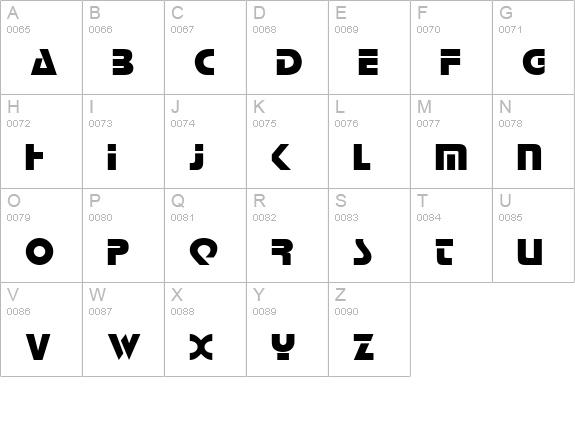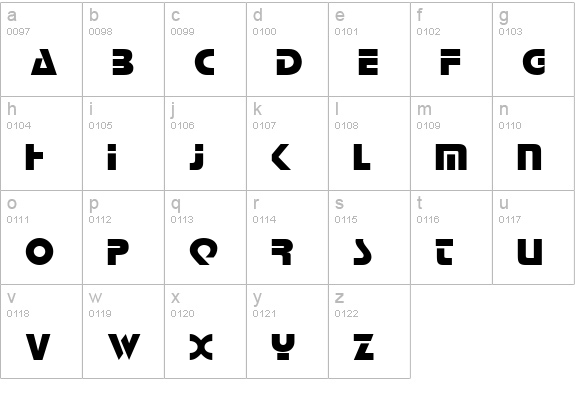
Scott font is a modern and stylish typeface that exudes elegance and sophistication. With its clean lines and graceful curves, this font is perfect for adding a touch of class to any design project. Whether you're creating a logo, designing a website, or crafting a wedding invitation, Scott font is sure to impress. But what makes Scott font even more appealing is that it is completely free! That's right, you can download this amazing font at absolutely no cost. Thanks to FontsMarket.com, you can easily access and enjoy the beauty of Scott font without breaking the bank. Not only is Scott font visually stunning, but it also offers a wide range of versatility. With multiple weights and styles available, you can find the perfect variation to suit your needs. From bold and impactful headlines to delicate and refined body text, Scott font has got you covered. Designed with attention to detail, Scott font is highly legible and easy to read, ensuring that your message is delivered clearly and effectively. Its timeless design makes it suitable for a variety of projects, from corporate branding to creative endeavors. So why wait? Take advantage of this incredible opportunity to enhance your designs with the captivating Scott font. Download it for free today at FontsMarket.com and elevate your visual creations to new heights.